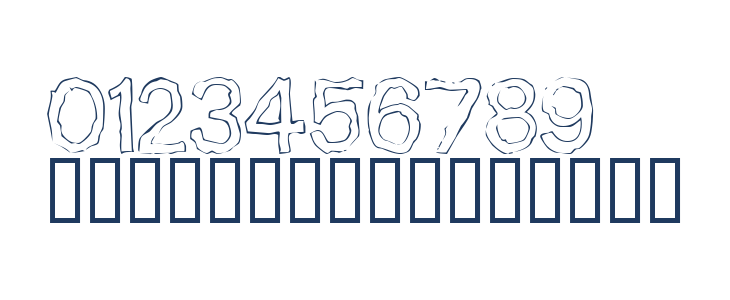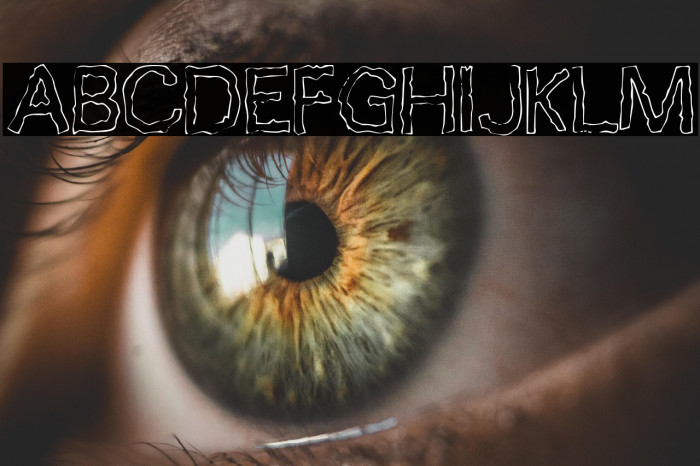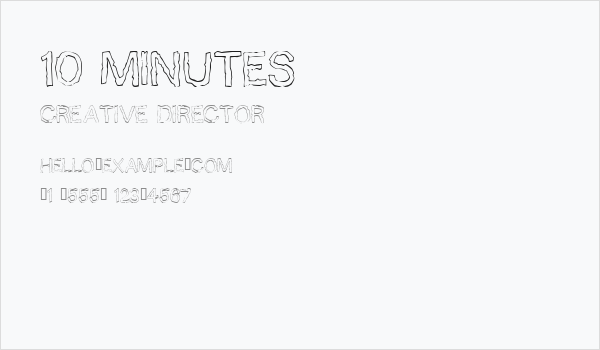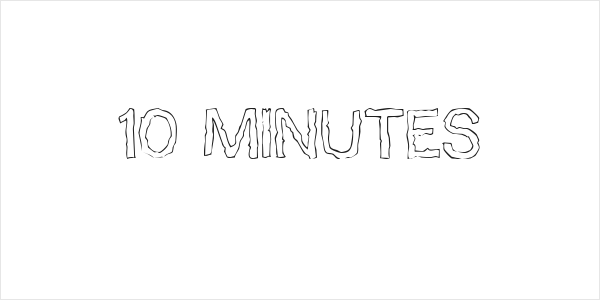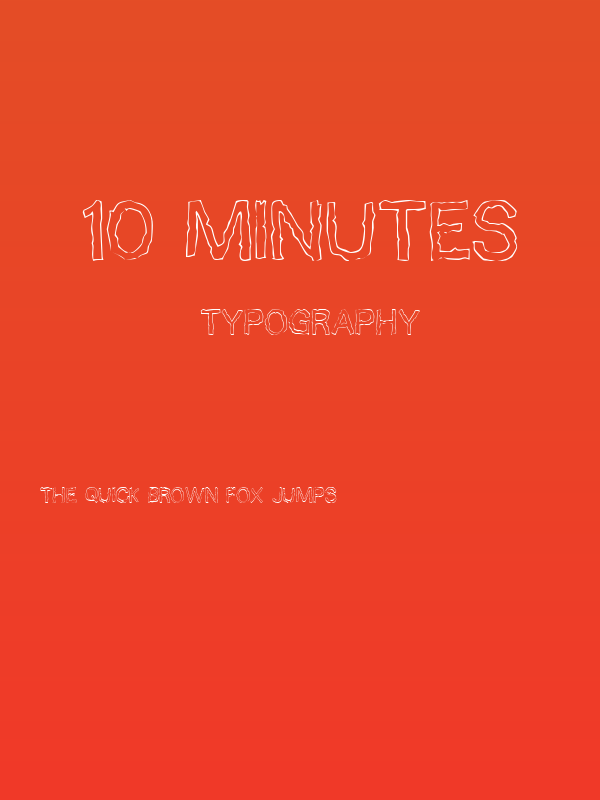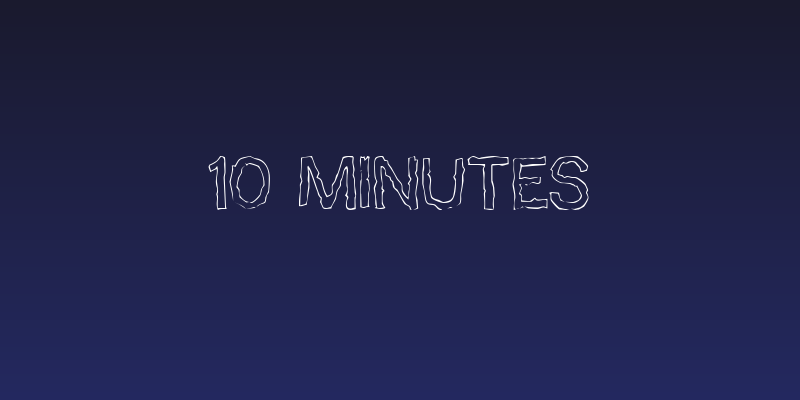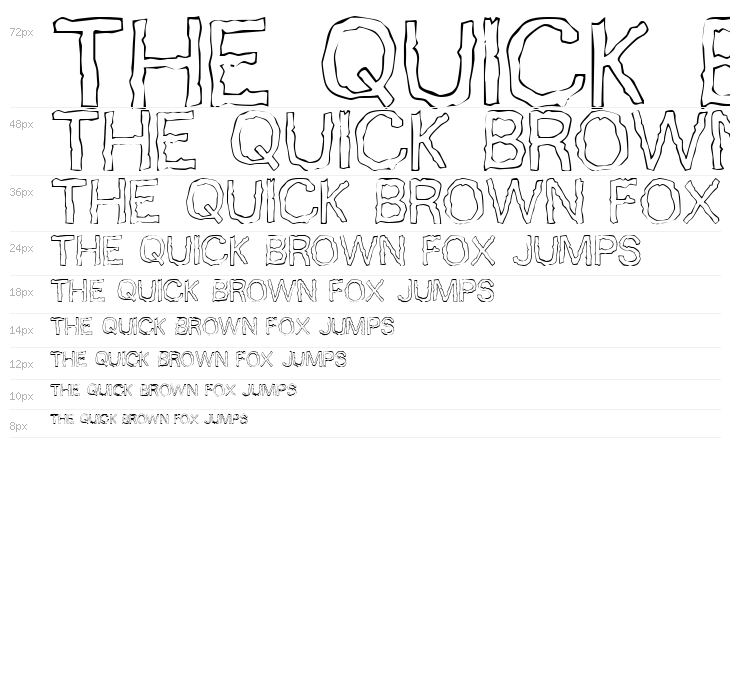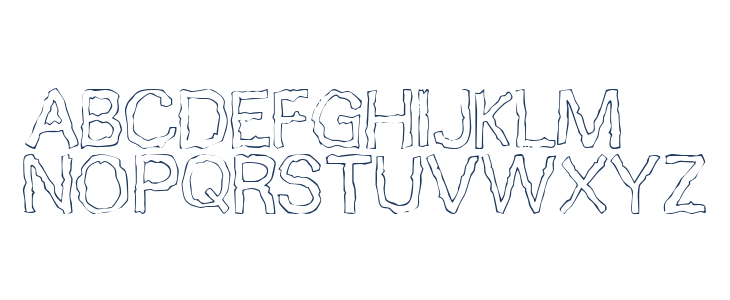
10 Minutes Font
10 Minutes Description
This font features a unique, hand-drawn aesthetic with an irregular, sketch-like outline that gives it a raw and artistic feel. The characters are uppercase and lowercase letters, along with numbers and a few special characters. Each letter is outlined with a rough, uneven line that suggests a casual, informal style. The font's appearance is reminiscent of doodles or graffiti, making it stand out with its distinctive, playful charm. It is suitable for projects that require a creative and unconventional look, such as artistic posters, informal invitations, or quirky branding materials.
| Overall Style | Artistic, Playful |
| Use Case | Headlines, Artistic projects, Informal designs |
| Proposed Projects | Ideal for artistic posters, informal invitations, quirky branding, and creative projects. |